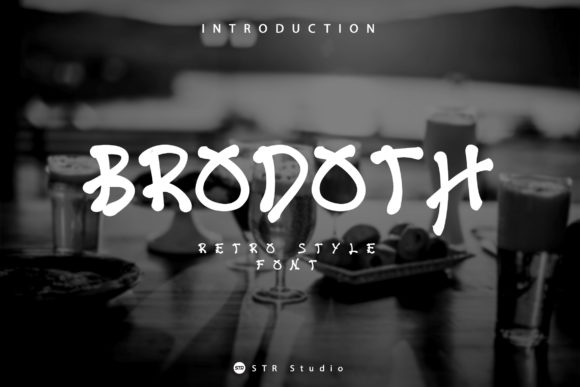
The Retro Charm of Brodoth Font: A Designer’s Delight
I’ll never forget the time I was working on a branding project for a trendy coffee shop. I had spent hours agonizing over the perfect color palette and logo design, but something was missing. That’s when I realized I needed a font that would capture the essence of the brand’s retro vibe. After scouring the internet, I stumbled upon Brodoth Font, and it was love at first sight! 💕
In this article, I’ll share my experience with Brodoth Font, its features, and how to make the most of it in your designs. Whether you’re a designer, crafter, or creative hobbyist, you’ll learn why Brodoth Font is a great addition to your font library.
An Honest Review of Brodoth Font
What I Love About Brodoth Font ✨
• ✅ Retro sans serif design that’s perfect for branding materials, business cards, and posters
• ✅ Versatile and can be used for a wide range of creative projects
• ✅ Unique character set that adds a touch of personality to any design
• ⚠️ Limited language support, so it’s best suited for English or similar languages
• ⚠️ Some users may find the font a bit too bold for certain applications
The Backstory of Brodoth Font
Brodoth Font was designed with the intention of capturing the essence of retro sans serif fonts. Inspired by classic designs from the 50s and 60s, Brodoth Font brings a touch of nostalgia and playfulness to any design. Its unique character set and bold personality make it perfect for creative projects that need a little extra flair.
Q: What type of projects is Brodoth Font best suited for?
A: Brodoth Font is perfect for branding materials, business cards, quotes, posters, and many more creative projects that require a touch of personality.
Q: Is Brodoth Font suitable for body text?
A: While Brodoth Font is highly legible, it’s best suited for headings, titles, and short paragraphs. For longer body text, consider using a more traditional serif or sans serif font.